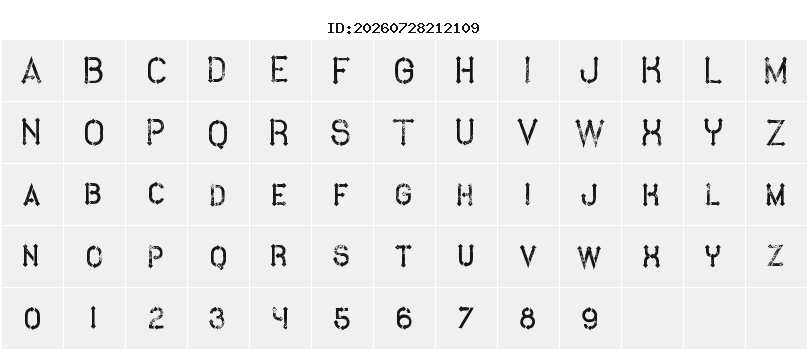
Metro Grunge Preview
• Font Name: Metro Grunge
• Full Font Name: Metro Grunge
• Designer: cruzine
• Manufacturer: cruzine
About Metro Grunge.ttf
Metro Grunge.ttf is a modern, elegant sans-serif font designed for ultimate readability and visual harmony. Perfect for branding, headlines, web design, and print materials.